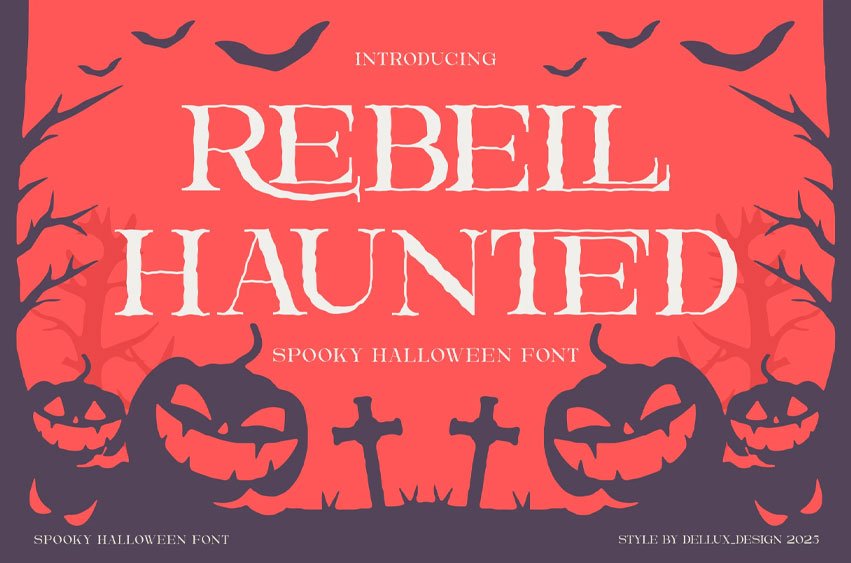
Rebell Haunted Font
Rebell Haunted Font is a unique font.
It can make it easier to convey the message in your design. Use for awesome display, labeling, movie scenes, posters, movie titles, gigs, album covers, logos, and much more.